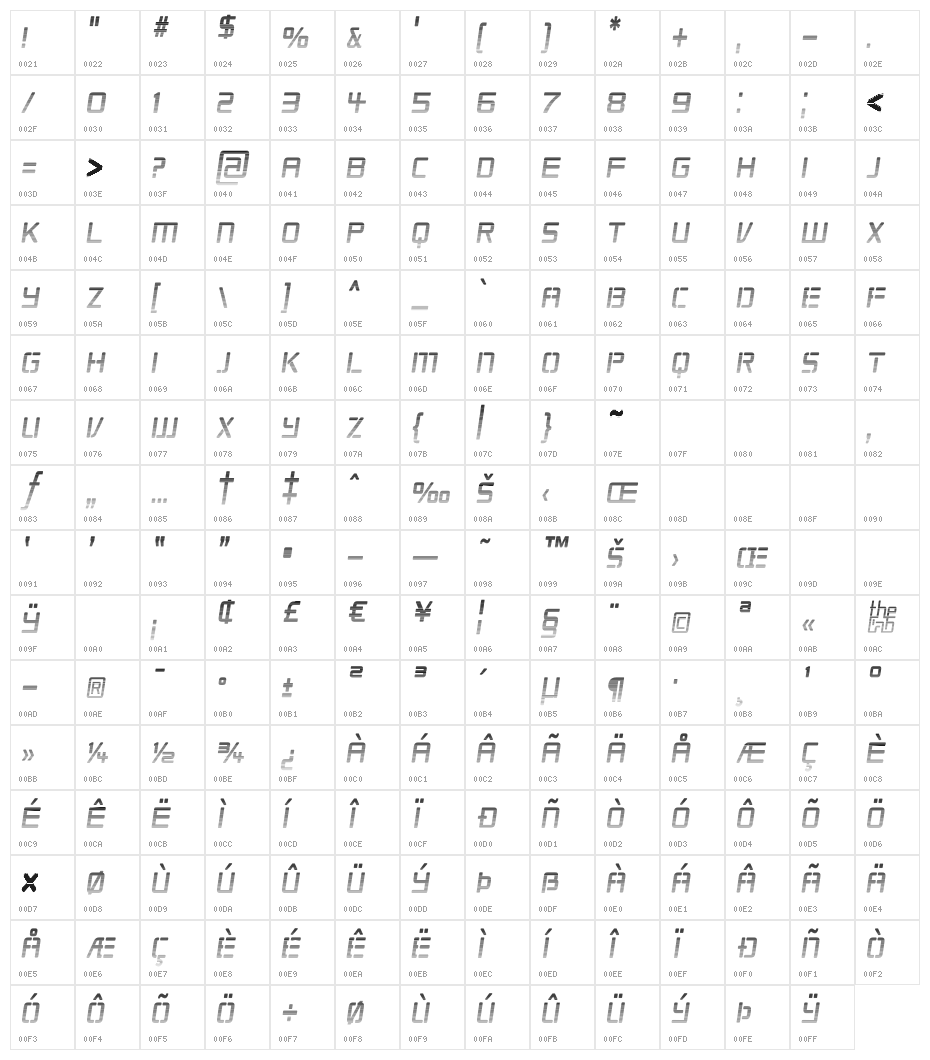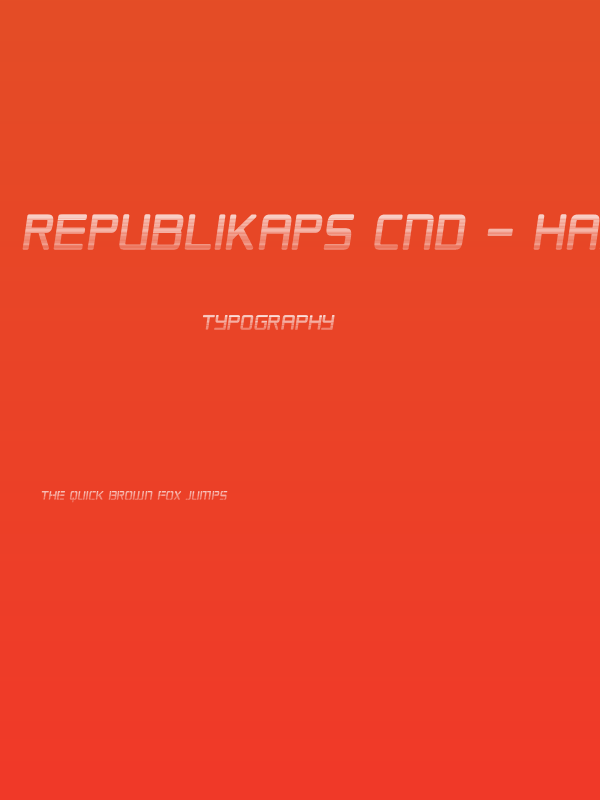
Republikaps Cnd - Haze Italic Font
Republikaps Cnd - Haze Italic Description
This font features a modern, condensed style with a distinct italic slant, giving it a dynamic and forward-moving appearance. The characters are constructed with a geometric precision, incorporating sharp angles and clean lines. The gradient effect adds a sense of depth and dimension, making it visually striking. The uppercase and lowercase letters maintain a consistent style, while the numerals and special characters are designed to complement the overall aesthetic. The font's sleek and futuristic look makes it suitable for contemporary design projects.
| Use Case | Logos, Headlines, Digital interfaces |
| Proposed Projects | Ideal for technology branding, sports team logos, futuristic posters, and digital interfaces. |